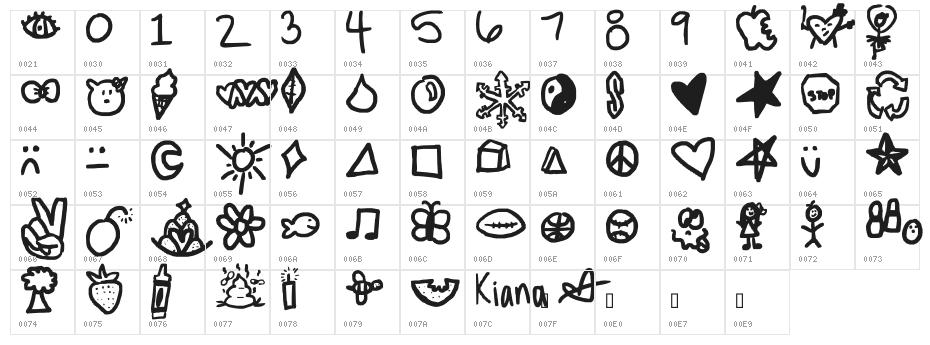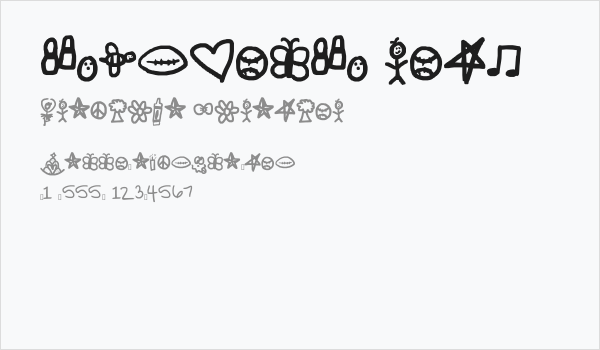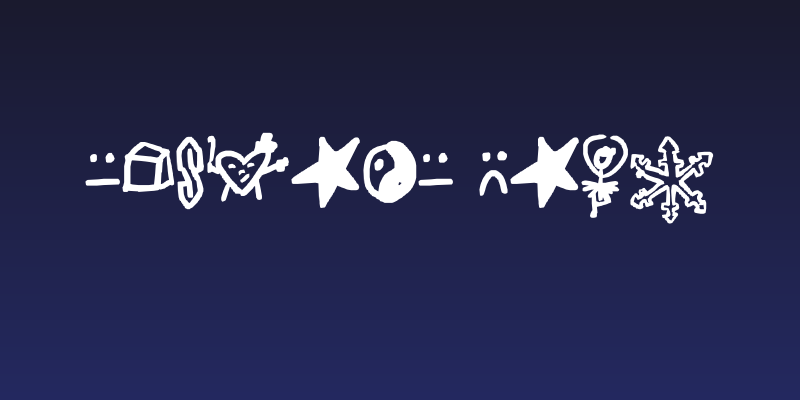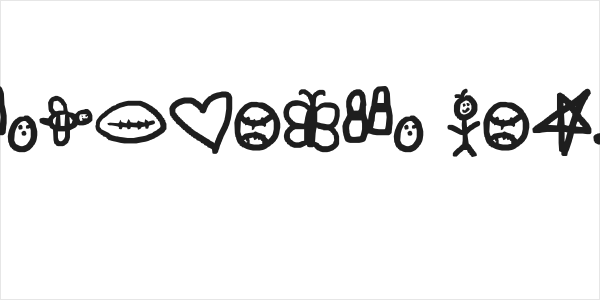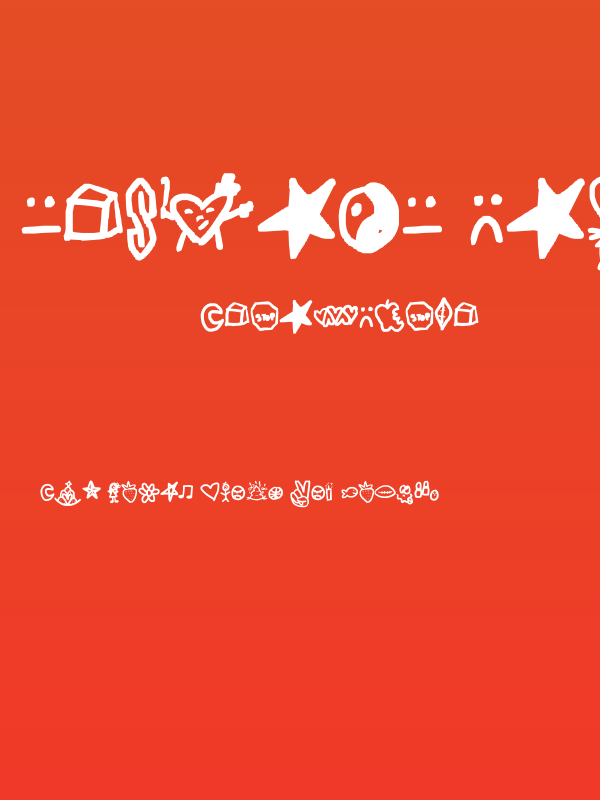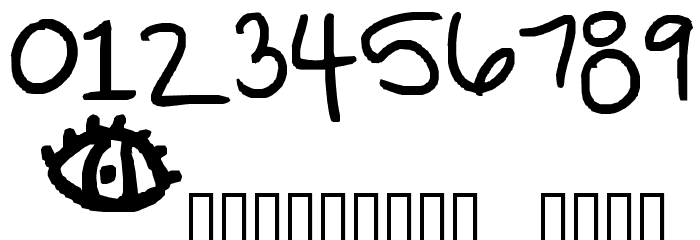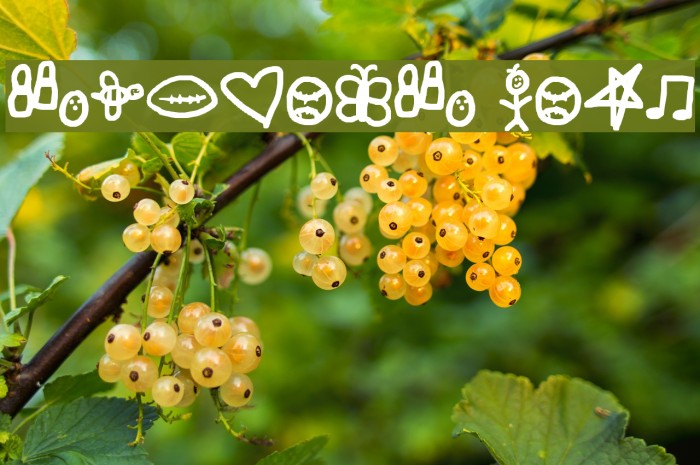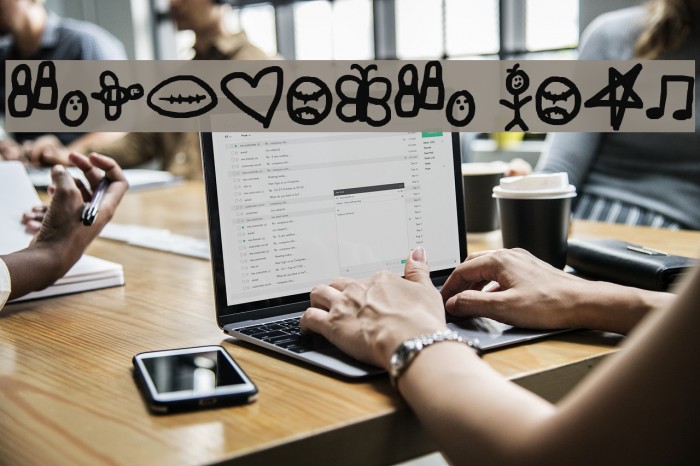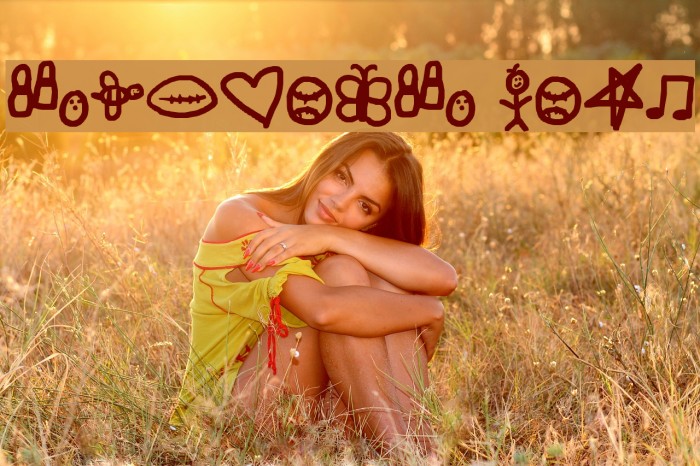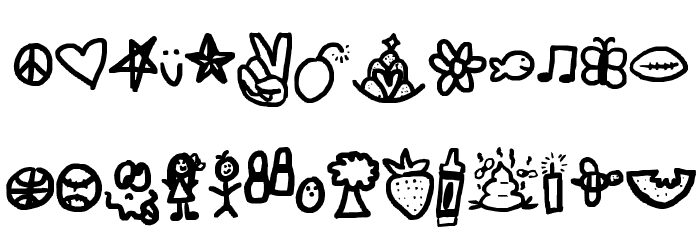
symbols rock Font
symbols rock Description
This collection features a playful and eclectic mix of hand-drawn symbols and characters, each with a unique and whimsical design. The symbols range from hearts, stars, and peace signs to more intricate designs like ice cream cones, flowers, and musical notes. The numbers are drawn in a casual, handwritten style, adding to the overall playful aesthetic. The bold, uneven strokes give the symbols a dynamic and energetic feel, making them stand out. This set is perfect for adding a fun and quirky touch to any project, with its wide variety of symbols offering endless creative possibilities.
| Overall Style | Whimsical, Playful |
| Use Case | Logos, Decorative elements, Creative projects |
| Proposed Projects | Ideal for creative projects such as greeting cards, children's books, party invitations, and playful branding. |